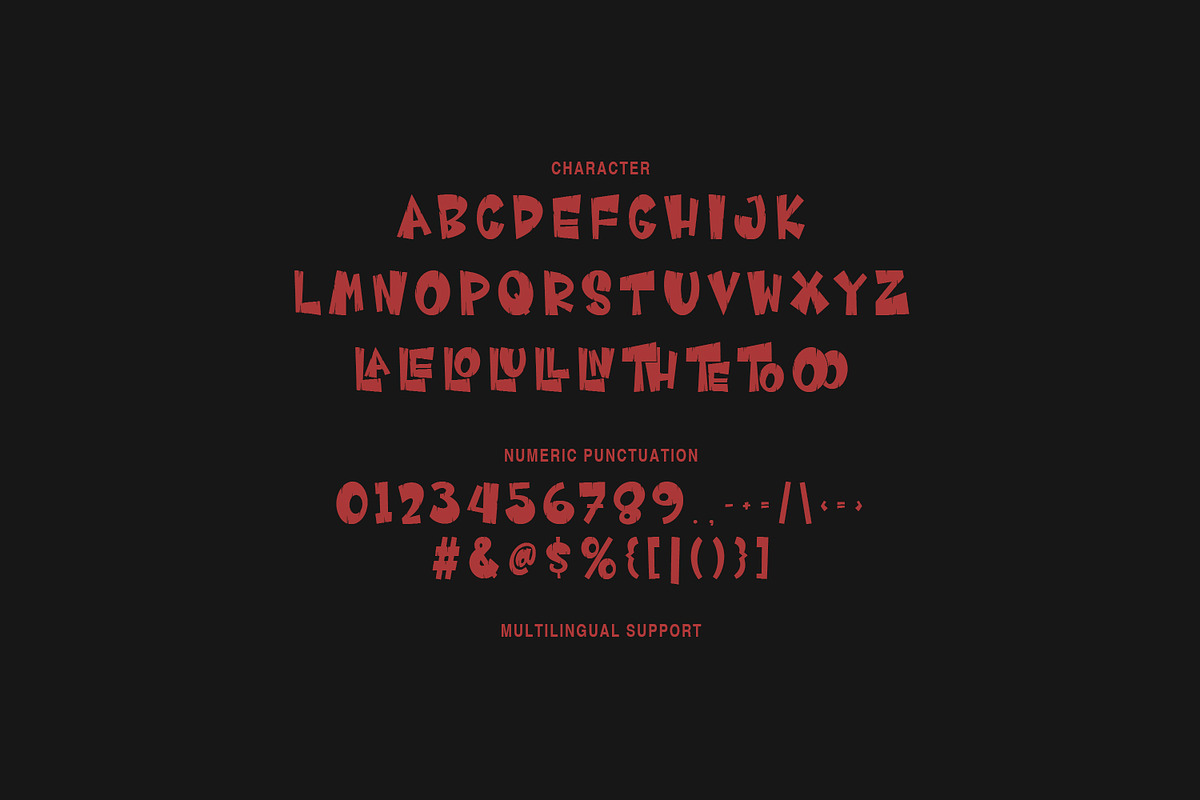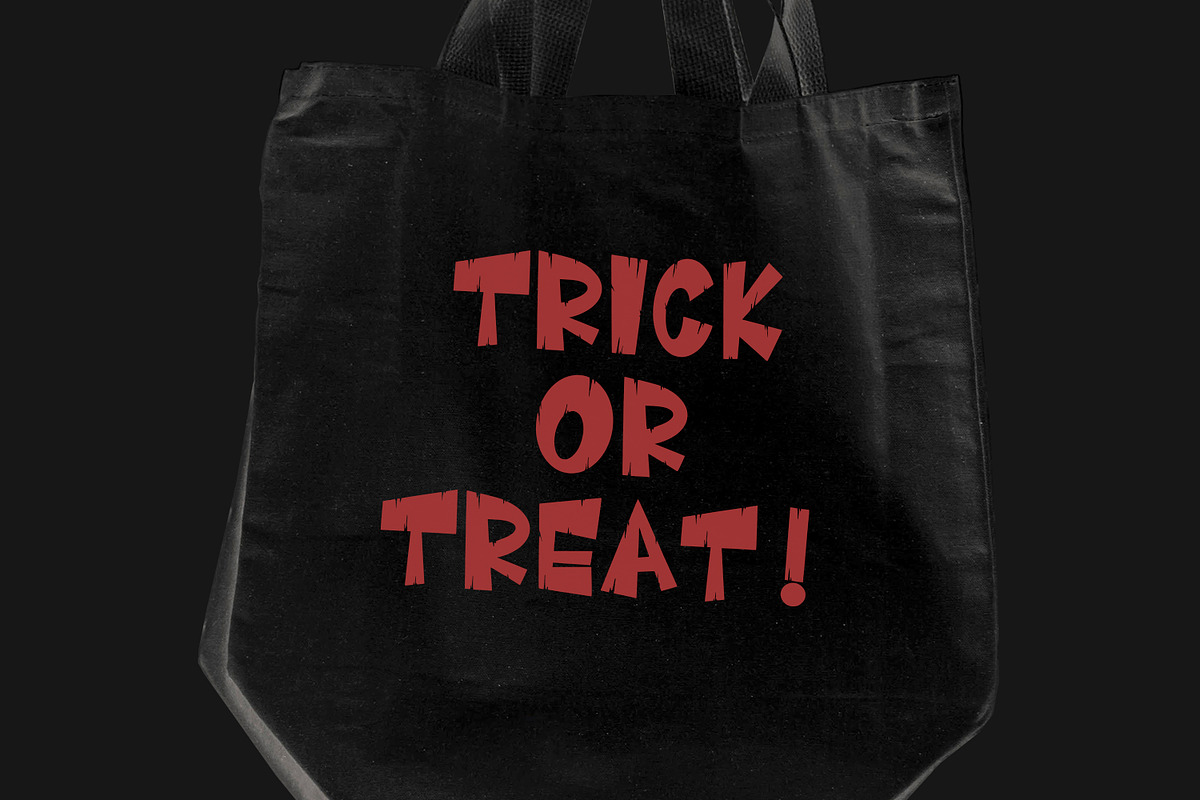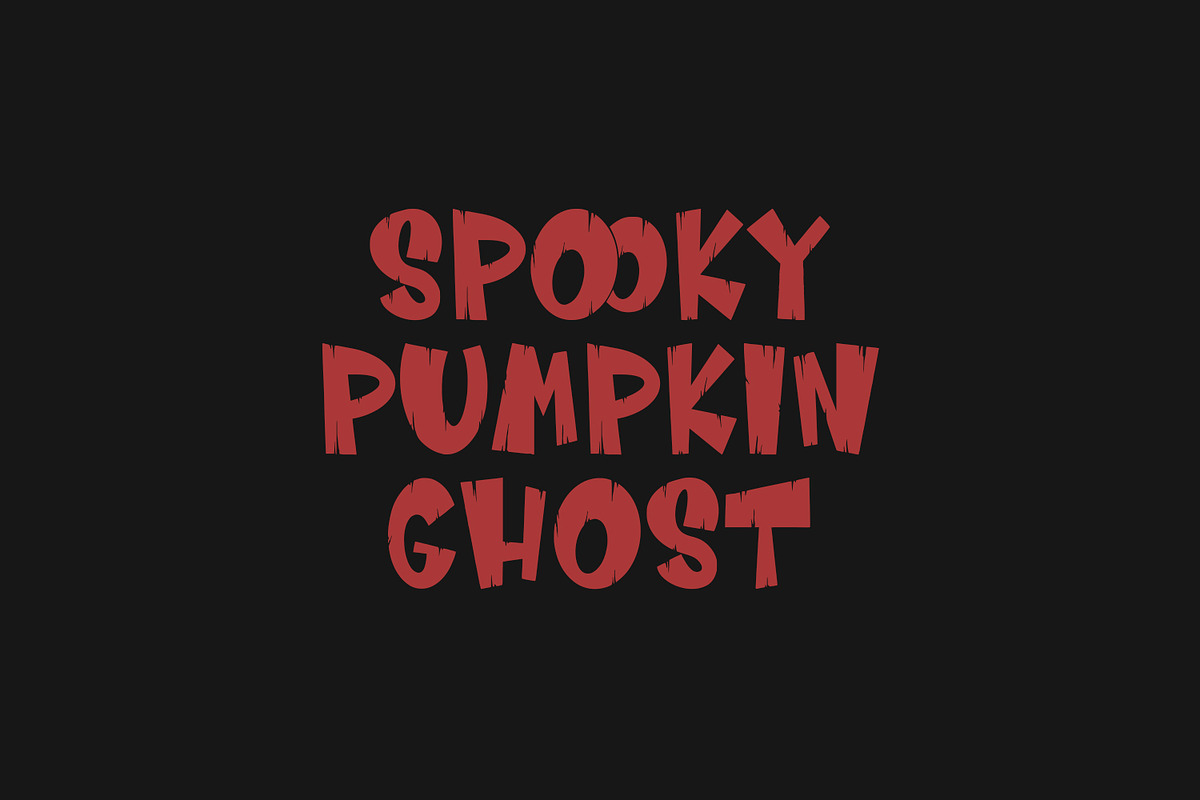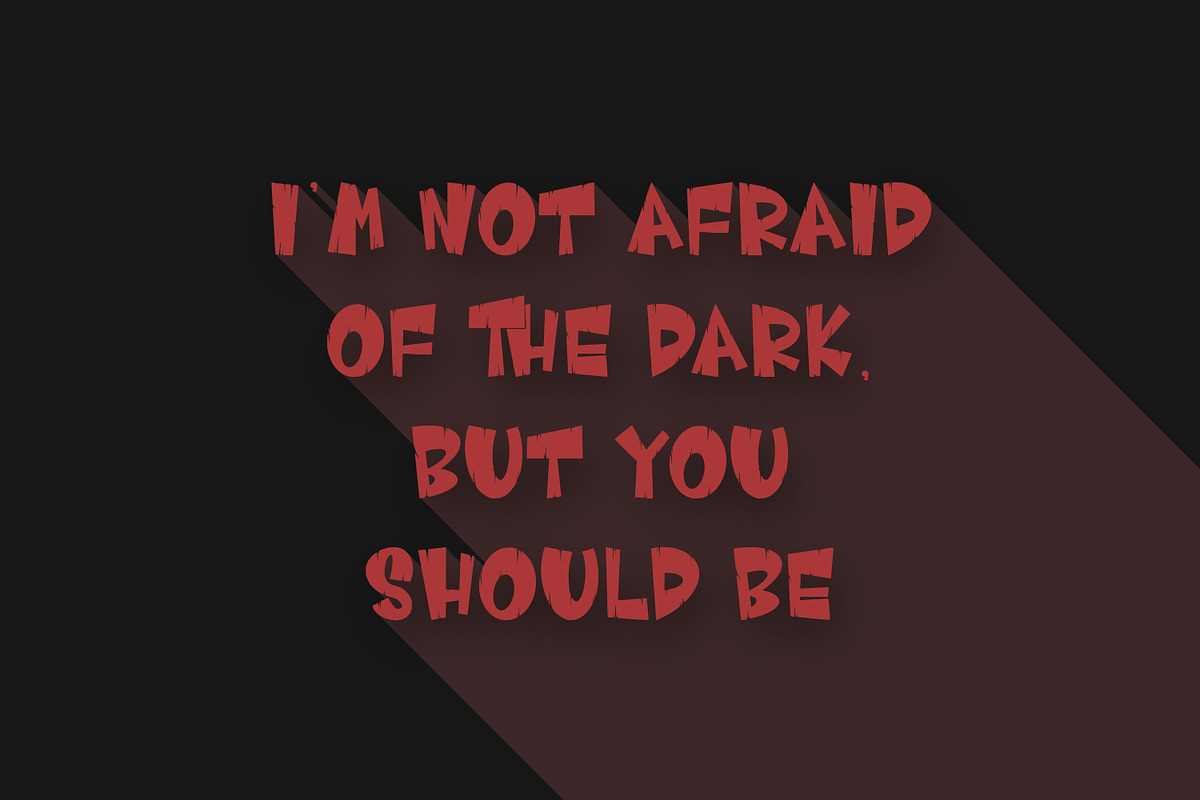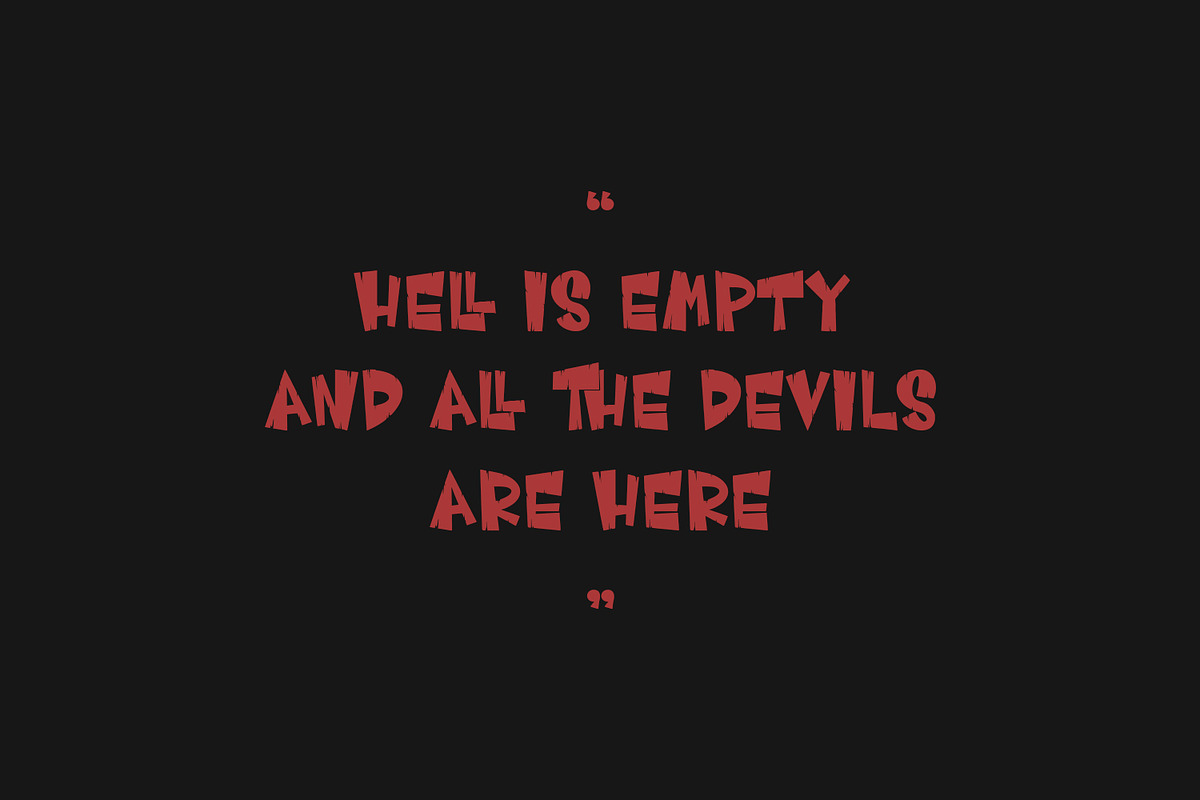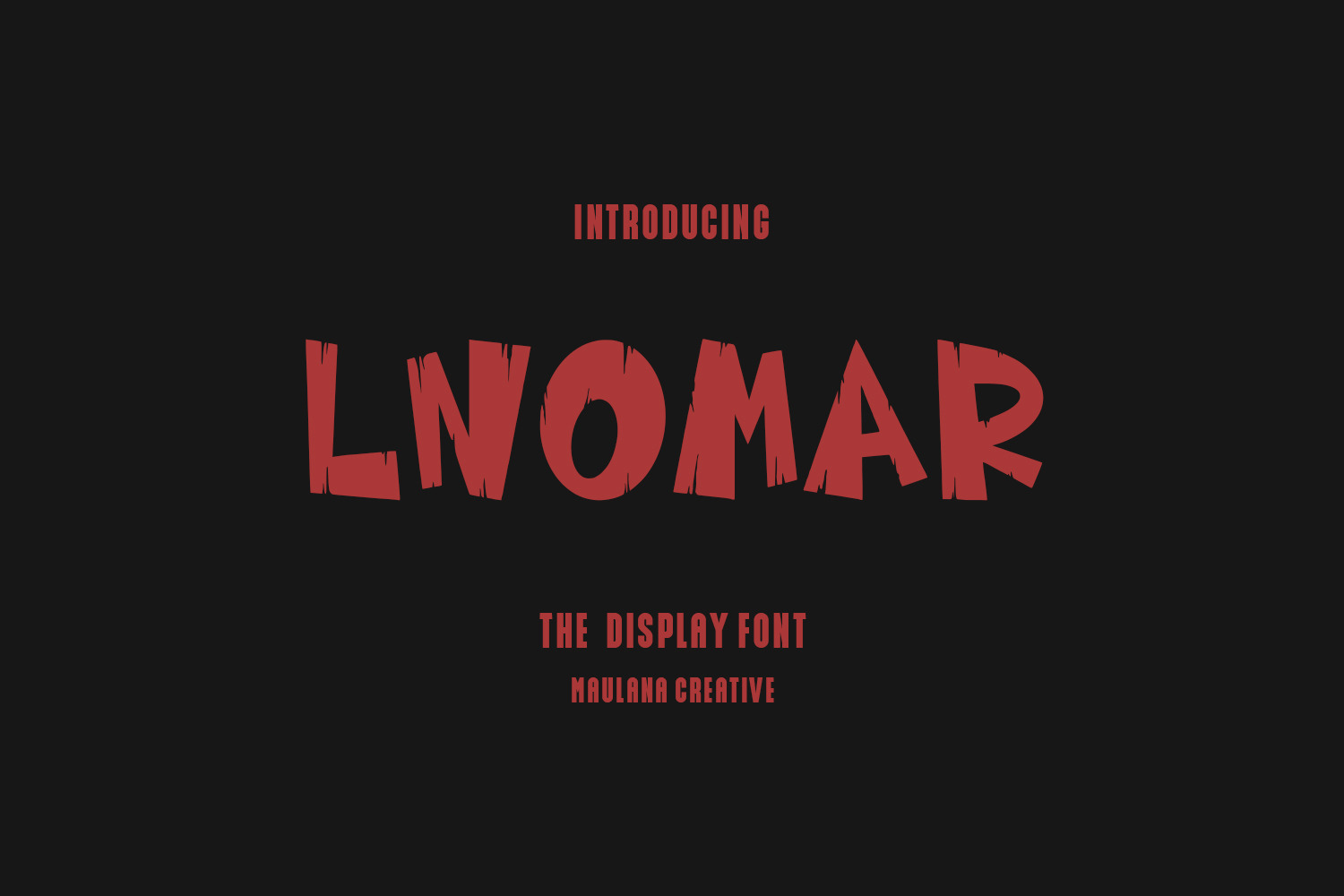
Lnomar Spooky Display Font
Looking for the perfect font to create a chilling, spooky vibe. Lnomar is a unique display font that's perfect for Halloween, horror themes, or any project that needs a touch of eerie charm. With its rough, hand-carved look and uneven edges, this font captures the spirit of a haunted house or a scary story.
Lnomar is great for:
- Halloween designs - Use it on posters, invitations, or trick-or-treat bags.
- Horror movie titles - Give your titles an authentic, creepy feel.
- Spooky quotes - Make your quotes stand out with a terrifying twist.
- Merchandise - From T-shirts to mugs, Lnomar adds a bold, ghostly touch.
Lnomar comes with a full set of uppercase characters, numbers, and punctuation, so you'll have everything you need to create your next spooky masterpiece. Download it today and let your creativity run wild!